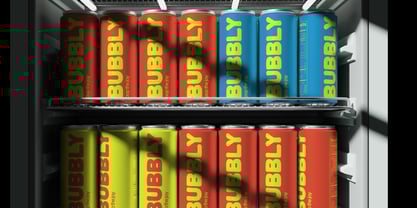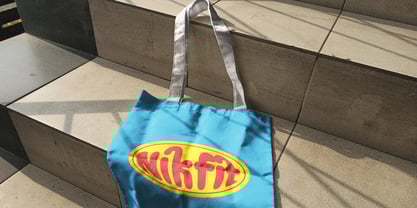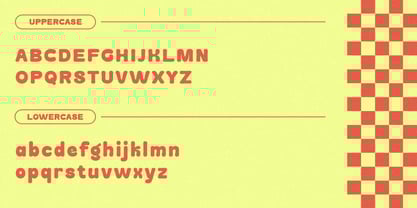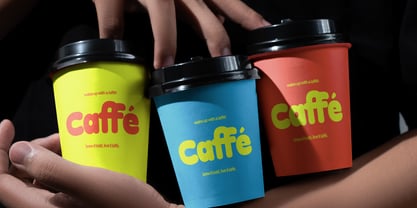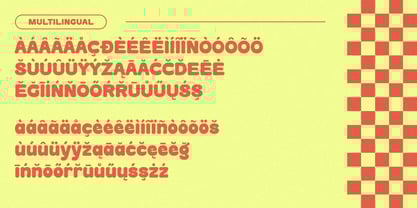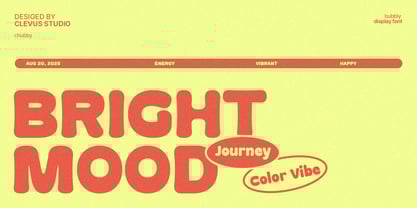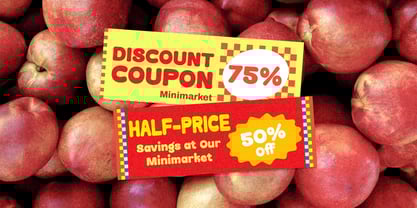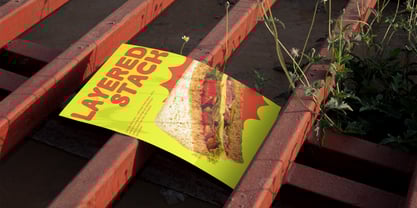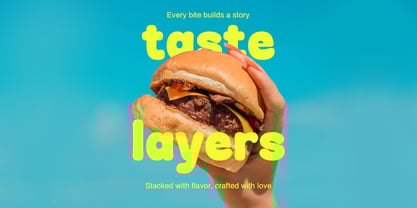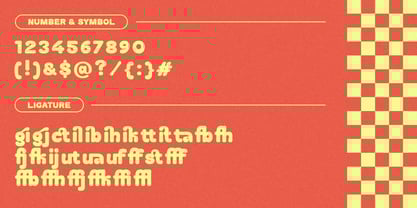
Holidough
by Clevus
The Holidough Font Family was designed by Alfinu Zafir and published by Clevus. Holidough contains 1 styles.
Say hello to Holidough, a plump and happy typeface that brings smiles wherever it goes. Its rounded edges and soft forms make every word feel cozy, friendly, and full of charm ideal for packaging, posters, or any design that craves joy. Comes with alternatives and ligatures, helps to create stunning logos, quotes, posts, blog posts. branding projects, magazine imagery, wedding invitations, and much more. Get Holidough font now and let your designs shine! Kindly check over on Behance - https://www.behance.net/clevus Have a Good Day !
Designers: Alfinu Zafir
Publisher: Clevus
Foundry: Clevus
Design Owner: Clevus
Holidough